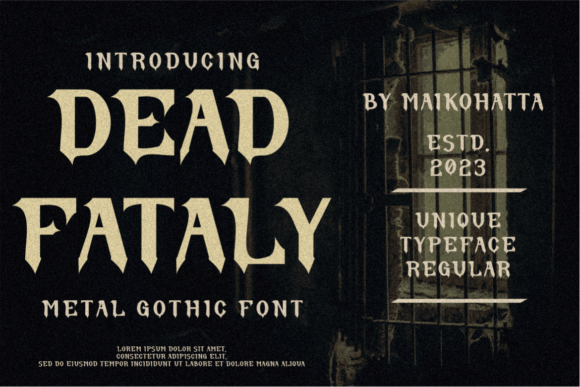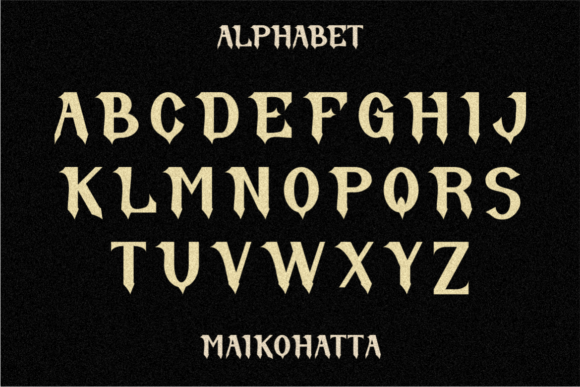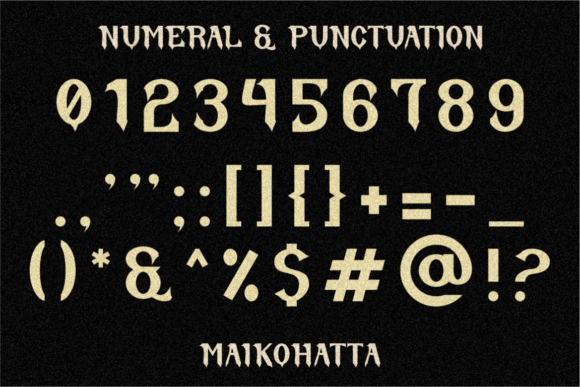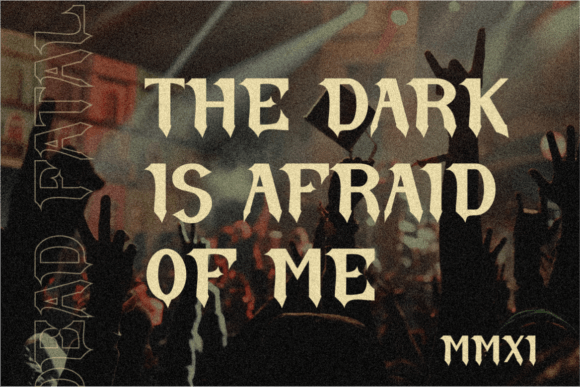
Dead Fataly Font: Unique Blackletter for Logos & Horror Designs
About the Dead Fataly Font
Discover the charm of Dead Fataly Font. This font is a perfect blend of modern aesthetics and classic appeal. **DEAD FATALY** Modern Blackletter Font
**DEAD FATALY** a distinct, highly detailed, and Horror Metal font. It would make a great choice for exquisite retro-urban designs, tattoo business branding, logos, vintage designs, and more.
Its strong vertical strokes and sharp details make it ideal for headlines, logos, and short impactful phrases in posters or branding materials for businesses with a rebellious or edgy aesthetic—think motorcycle clubs, heavy metal bands, or tattoo parlors. Avoid using it for body text or long paragraphs; its intricate design would be difficult to read at smaller sizes.
Dead Fataly’s core personality is bold, aggressive, and highly detailed, conveying a sense of vintage-inspired rebellion. It projects power and a strong visual impact, best suited for projects where this energy is a central element.